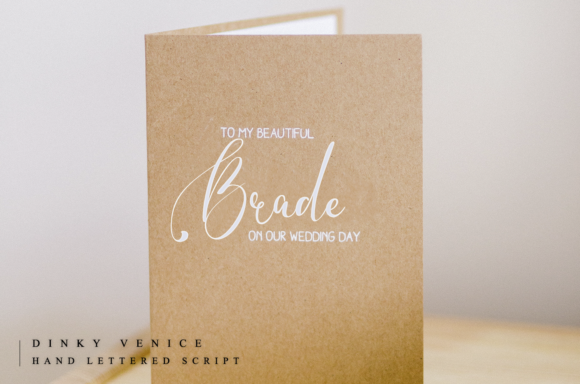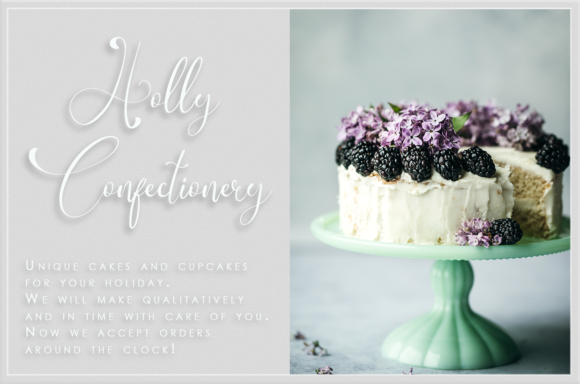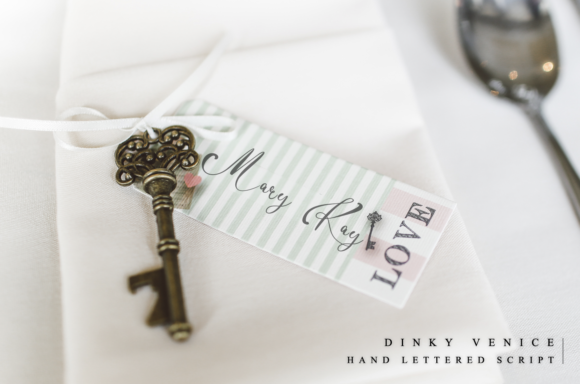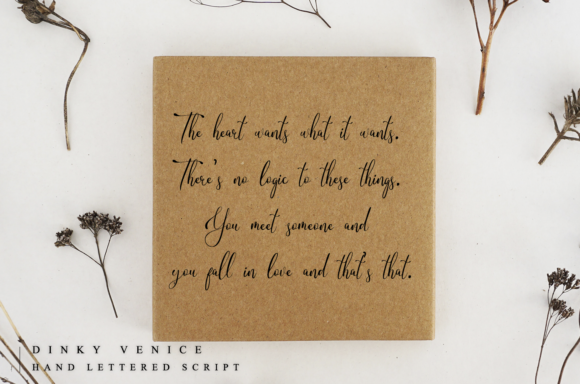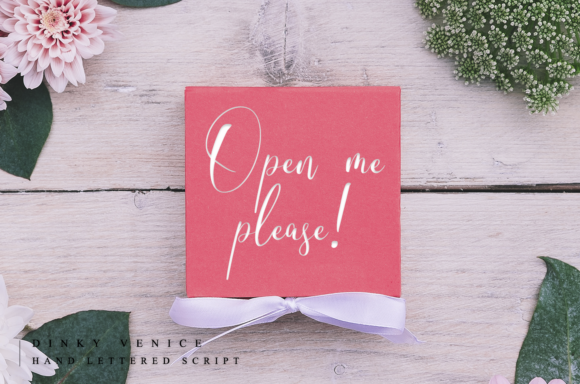
Introduction to Dinky Venice Font
Dinky Venice is the perfect font for setting a romantic and calm mood and inspiring emotions.
| 👤 Author | enyaaa90 |
Fall in love with this unique script .
Key Features of Dinky Venice Font
Why Choose Dinky Venice Font?
Dinky Venice Font offers exceptional quality and versatility, making it a valuable addition to your design toolkit. Whether you’re creating for personal projects or commercial use, Dinky Venice Font delivers professional results.